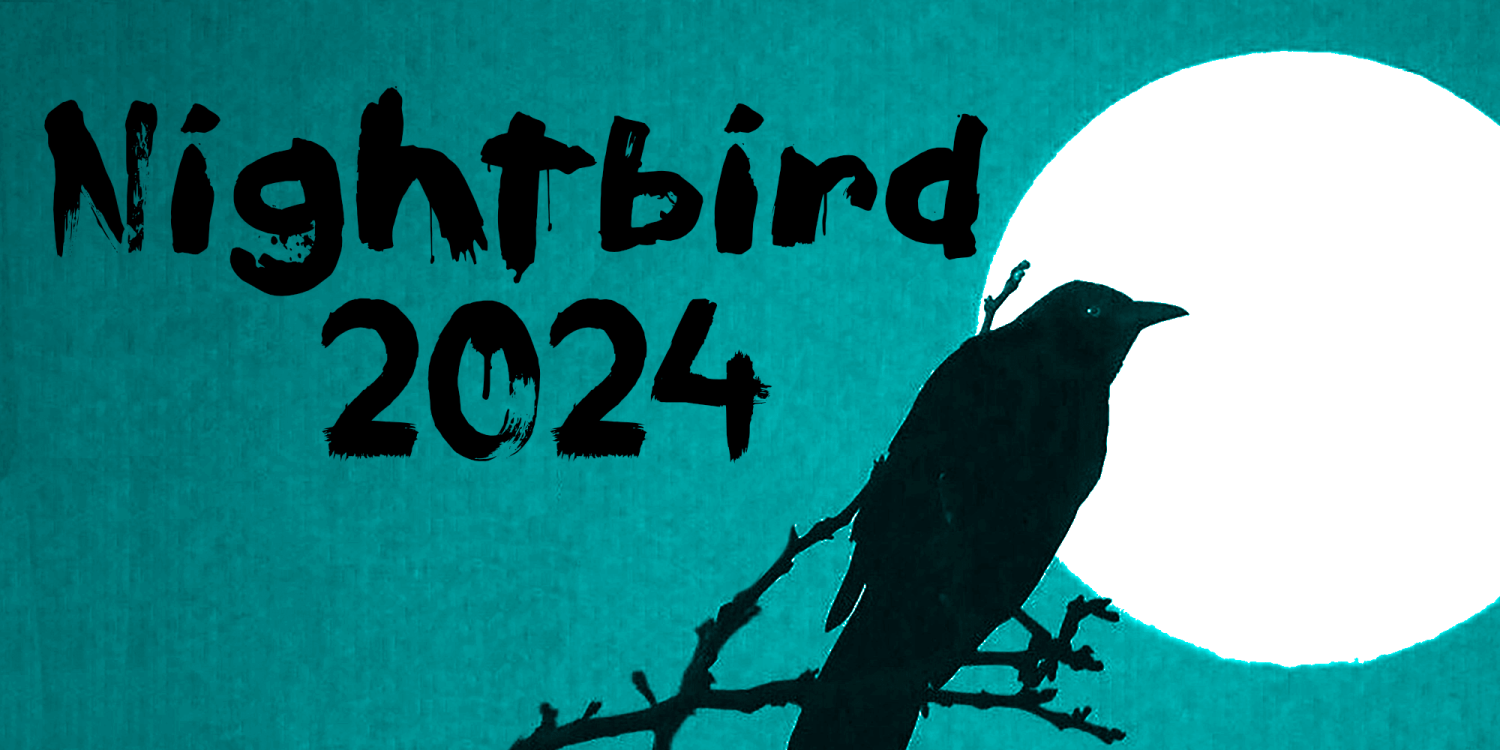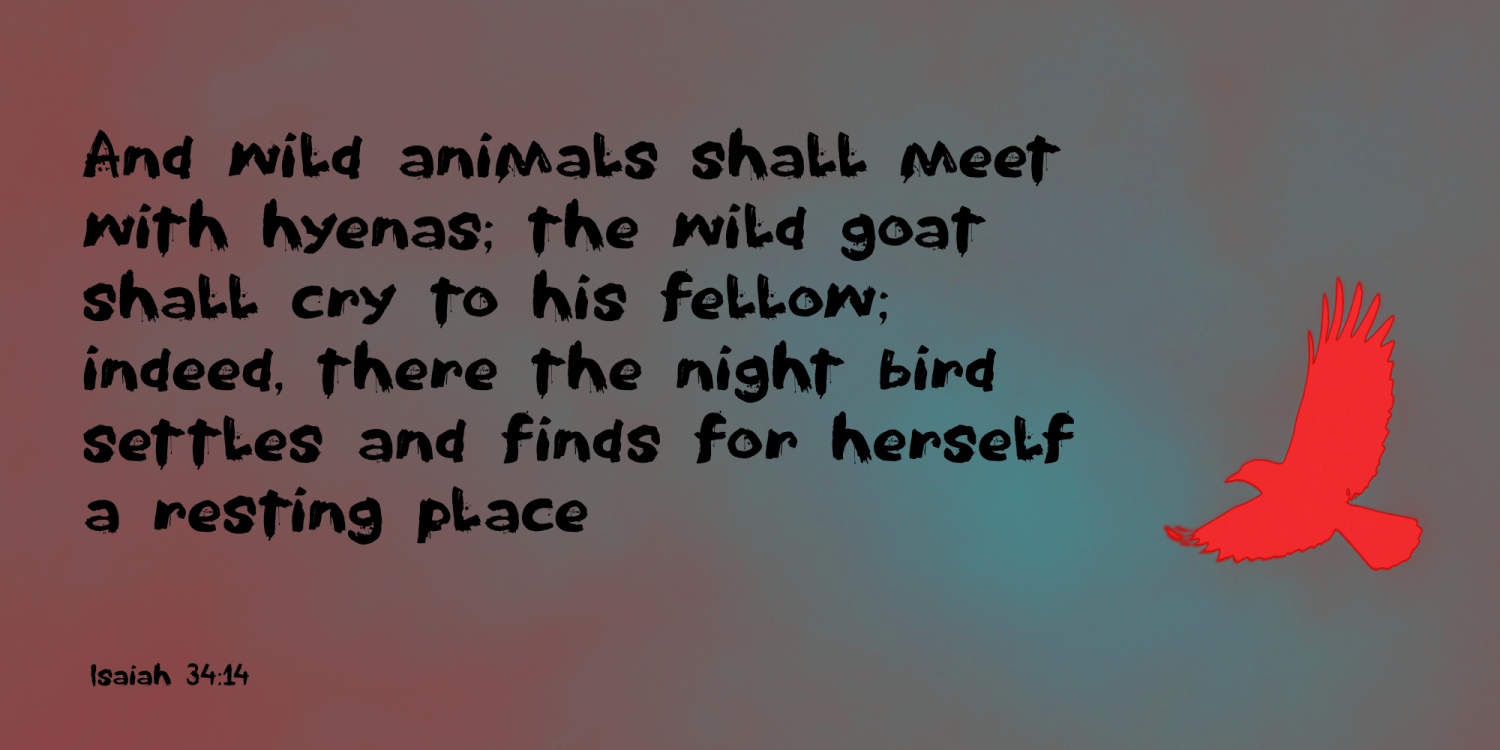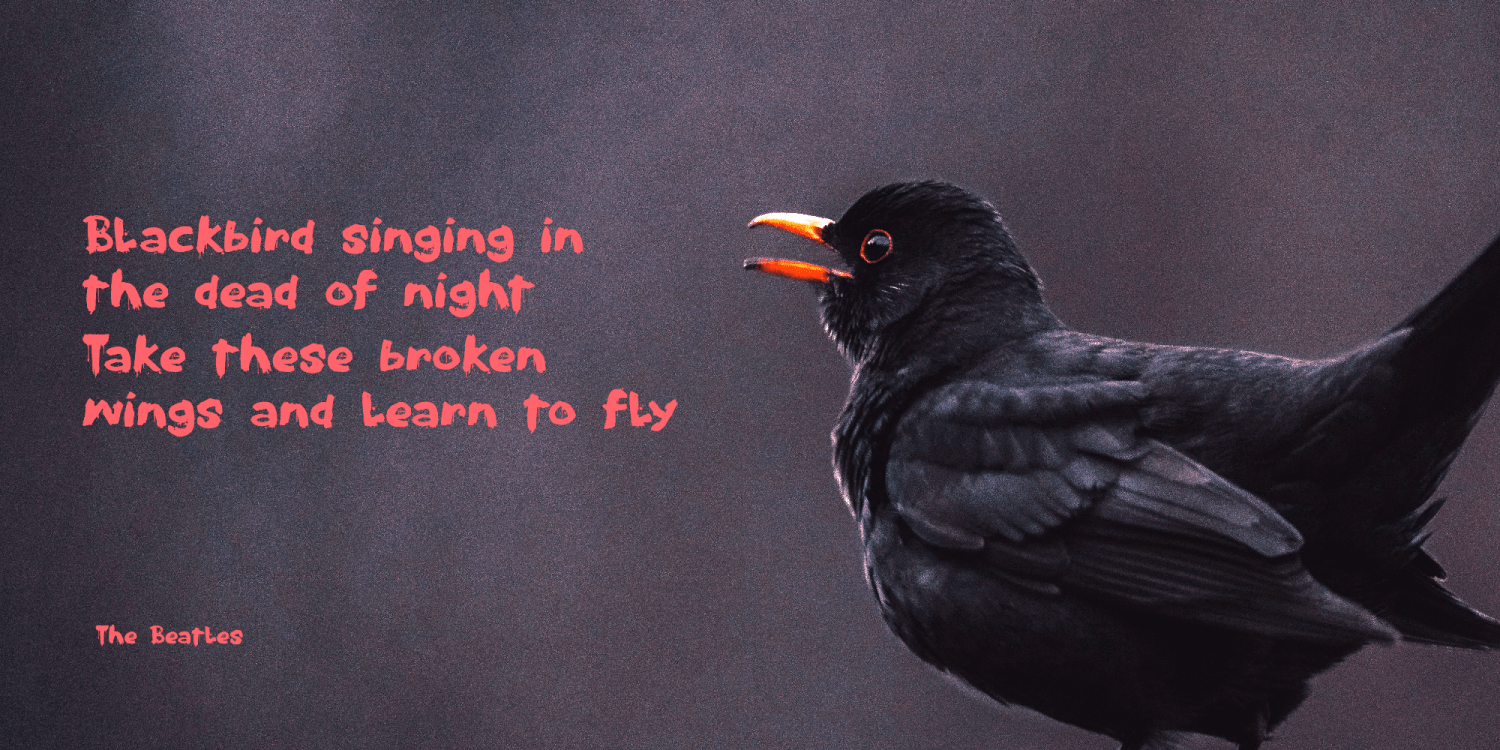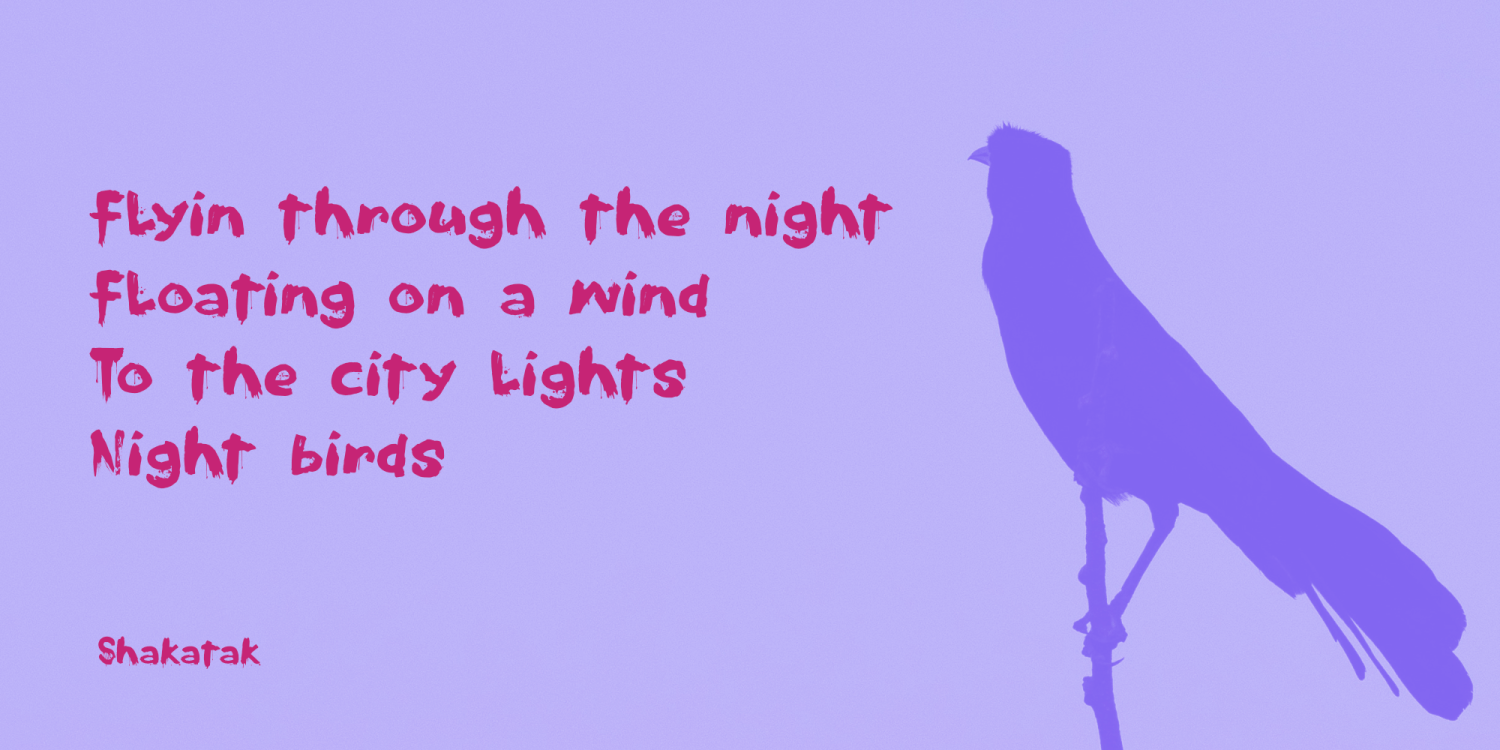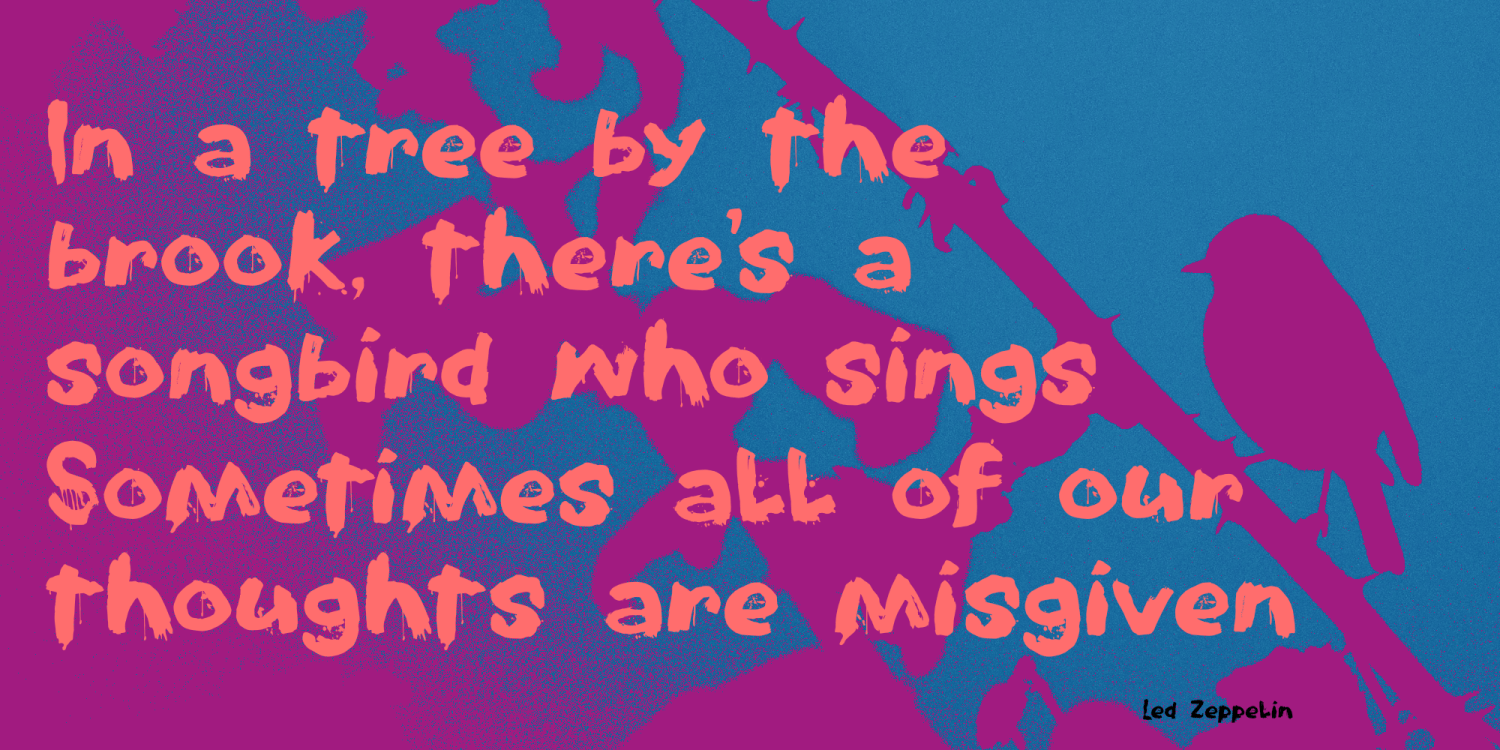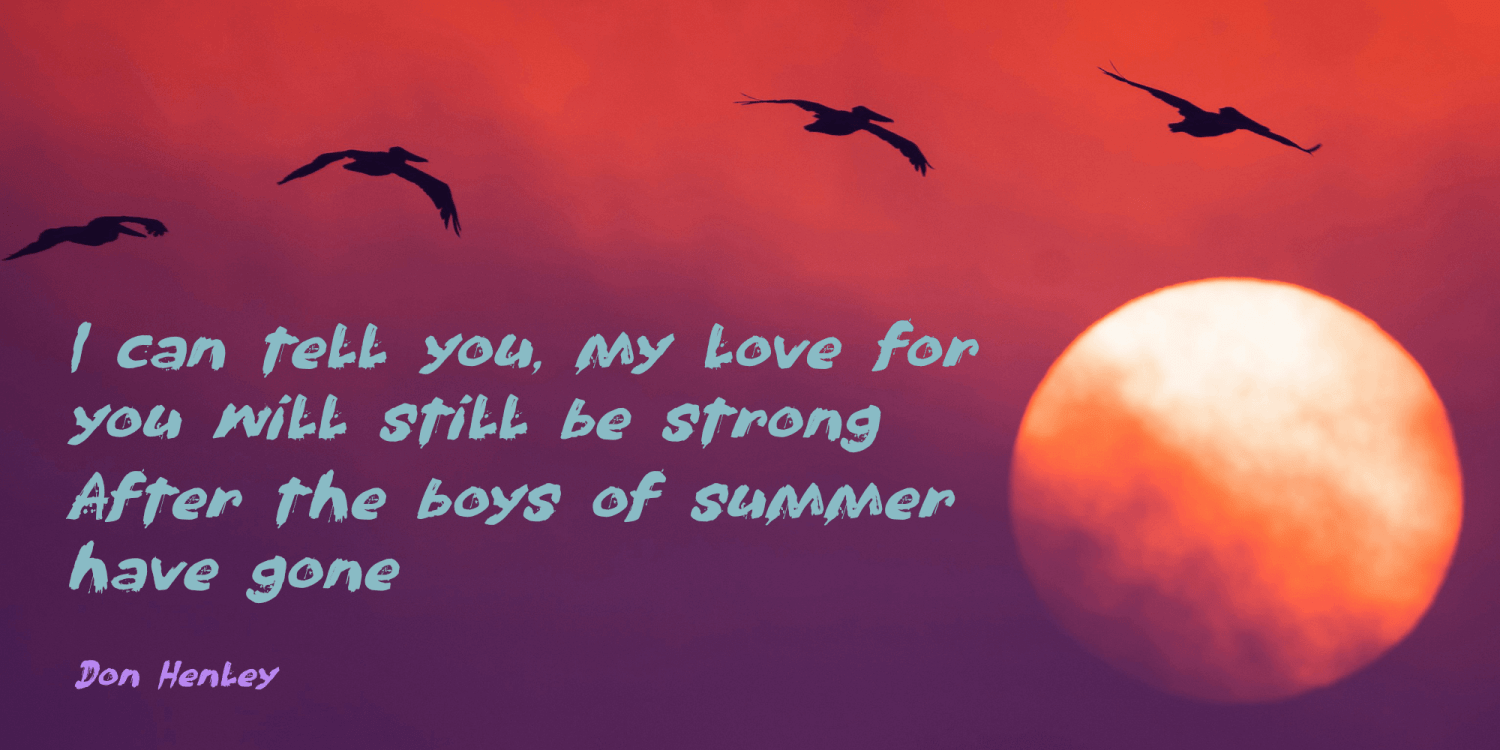
Nightbird 2024
Nightbird 2024 is a remake of a 2011 font called Nightbird. When I made it, it became quite popular for a while, especially among musicians and the people creating their album art. The problem with the original Nightbird was that it came with just one set of letters: the same caps for lower and upper case.
I reworked the font, kept as much of the original upper case as I could (except for some really crazy brush strokes) and made a brand new lower case, plus all the missing non-letter glyphs.
Comes with extensive language support as well.